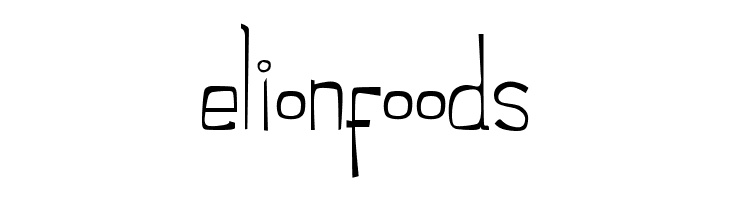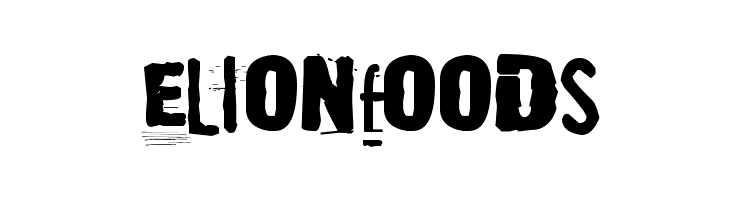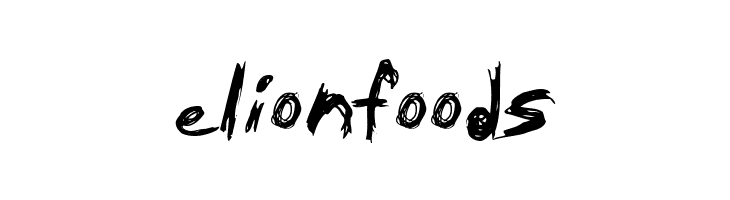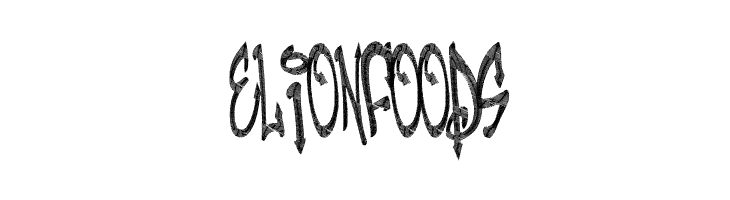
A bold, graffiti-inspired font with a dynamic, urban aesthetic.
A modern, elongated font with a unique, stilt-like design.
A distressed, grungy font with bold, irregular strokes and a hand-drawn feel.
A bold, hand-drawn font with an edgy, dynamic style.